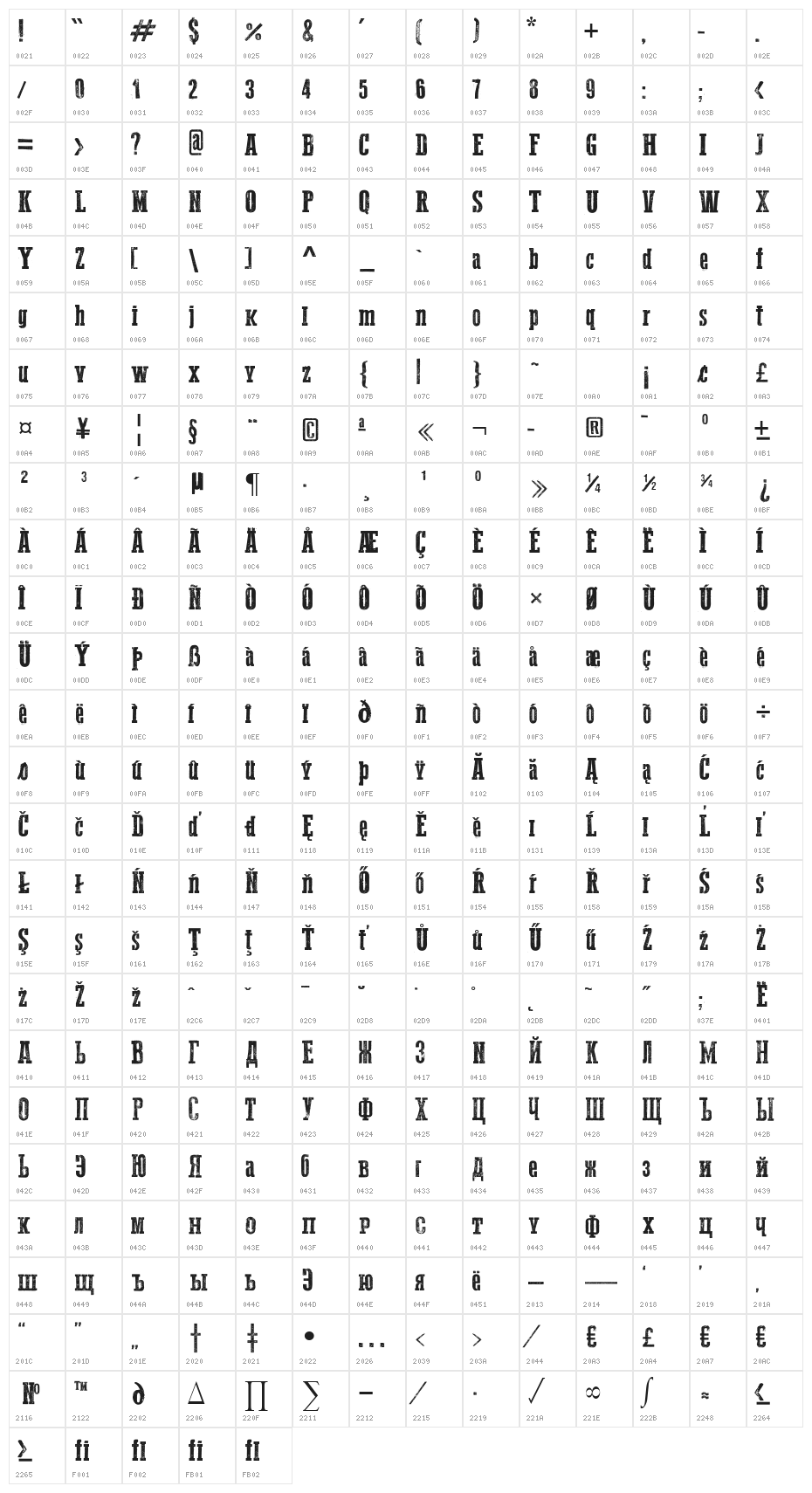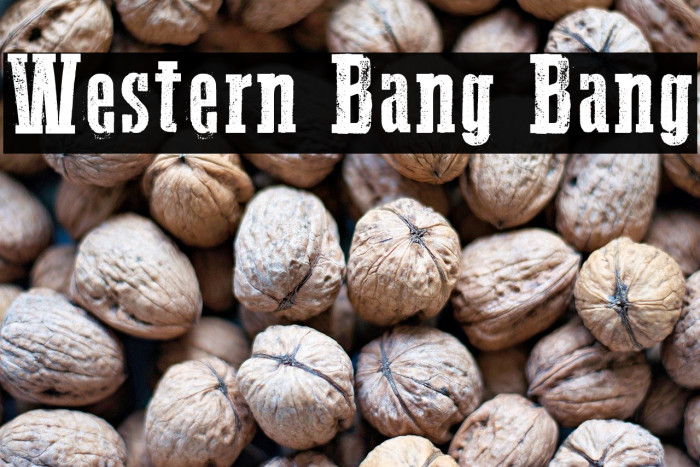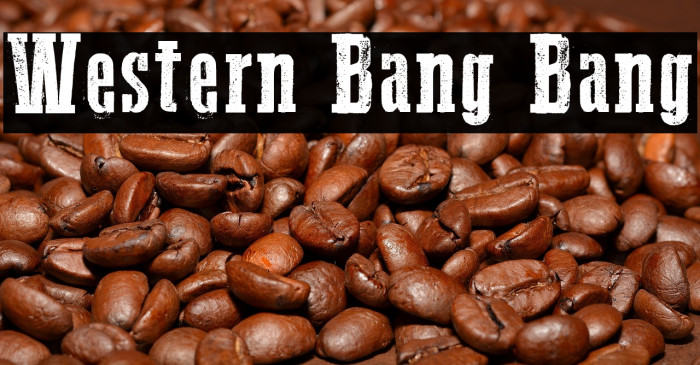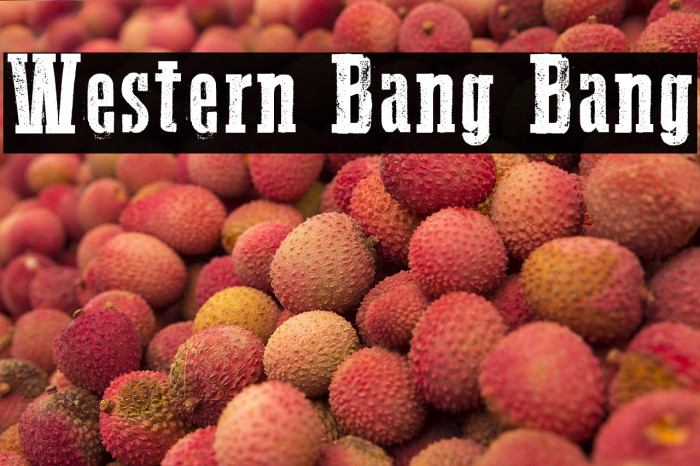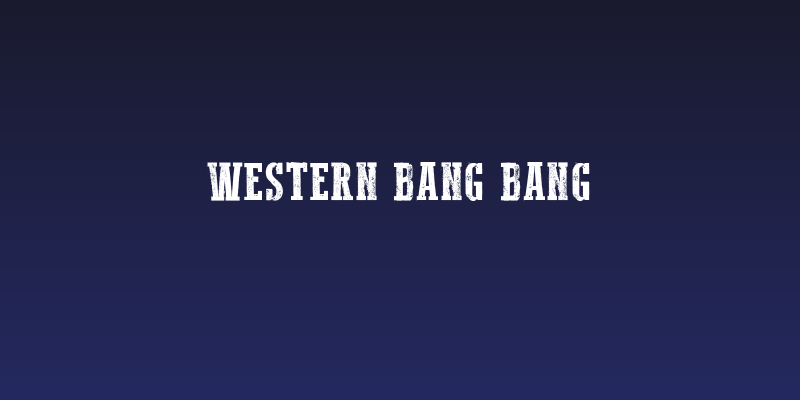
Western Bang Bang Font
Western Bang Bang Description
This font features a bold and rugged design, reminiscent of classic Western typography. The characters are heavily textured, giving them a distressed and vintage appearance. The uppercase and lowercase letters maintain a consistent weight, with thick strokes and sharp serifs that enhance the boldness of the font. The numerals and special characters follow the same stylistic approach, ensuring uniformity across all glyphs. This font's distinct style makes it ideal for projects that require a strong, impactful visual presence.
| Proposed Projects | Ideal for posters, branding, signage, and any design project seeking a vintage Western aesthetic. |